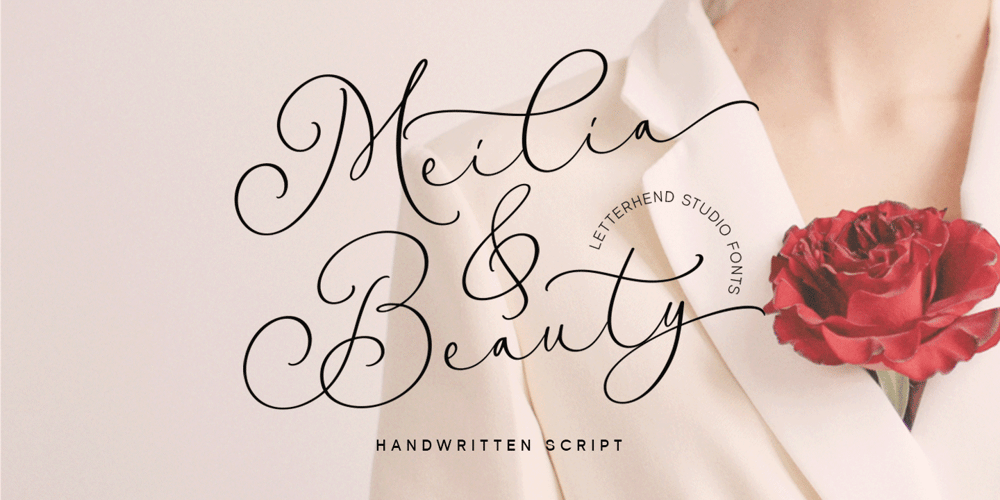
Meilia Beauty Font Family was designed by Hendry Juanda and published by Letterhend. Meilia Beauty contains 1 styles and family package options. Meilia & Beauty is a gorgeous handwritten script font that embodies the essence of femininity and beauty. Its flowing curves and classy details create a look that is both charm and classy. Perfect for fashion, beauty, and lifestyle brands, this font will add a touch of sophistication and glamour to the other various formal forms such as invitations, labels, logos, magazines, books, greeting / wedding cards, packaging, fashion, make up, stationery, novels, labels or any type of advertising purpose.Features : Uppercase & lowercase Numbers and punctuation Alternates & Ligatures Multilingual PUA encoded We highly recommend using a program that supports OpenType features and Glyphs panels like many of Adobe apps and Corel Draw, so you can see and access all Glyph variations.